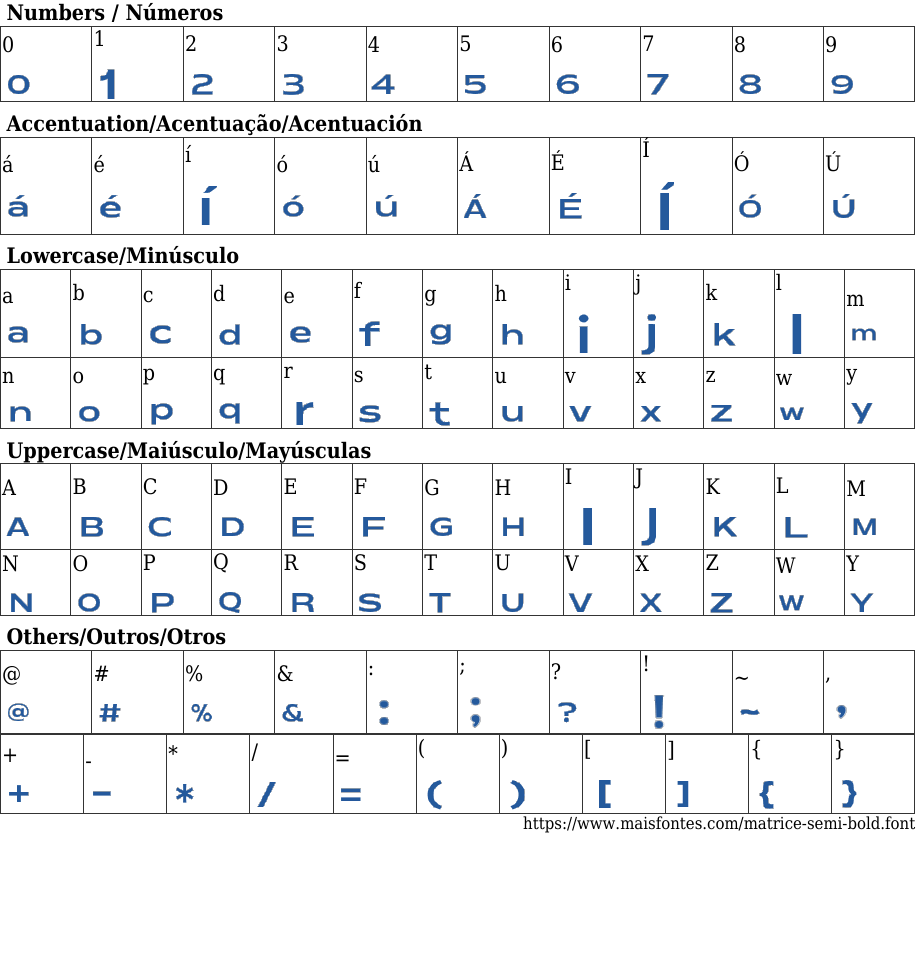
Matrice Semi Bold Font Zip . Support 75+ languanges (latin based) influenced. Matrice sans serif font is a convenient and modern grotesk sans serif features low contrast.
Support 75+ languanges (latin based) influenced. Web matrice is a sans serif (semi extended) display font family in 8 weights plus matching natural italics. Web matrice font family.
Matrice Semi Bold Font Zip - Matrice is a sans serif (semi extended) display font family in 8 weights plus matching natural italics. Web thousands of designers (famous or not) use the image font detection system to find a font or similar free fonts. Matrice sans serif font is a convenient and modern grotesk sans serif features low contrast. Support 75+ languanges (latin based) influenced. The.
Matrice Semi Bold Font Zip - Matrice sans serif font is a convenient and modern grotesk sans serif features low contrast. Web matrice is a sans serif (semi extended) display font family in 8 weights plus matching natural italics. Web matrice is a sans serif (semi extended) display font family in 8 weights plus matching natural italics. Web thousands of designers (famous or not) use the.
Matrice Semi Bold Font Zip - Web matrice is a sans serif (semi extended) display font family in 8 weights plus matching natural italics. Web matrice is a sans serif (semi extended) display font family in 8 weights plus matching natural italics. Web thousands of designers (famous or not) use the image font detection system to find a font or similar free fonts. Matrice sans serif.
Matrice Semi Bold Font Zip - Matrice is a sans serif (semi extended) display font family in 8 weights plus matching natural italics. Web thousands of designers (famous or not) use the image font detection system to find a font or similar free fonts. Web matrice is a sans serif (semi extended) display font family in 8 weights plus matching natural italics. Support 75+ languanges (latin.
Matrice Semi Bold Font Zip - The font is available in all formats (matrice woff2, matrice woff, matrice ttf, matrice eot) and applicable to the website,. Matrice is a sans serif (semi extended) display font family in 8 weights plus matching natural italics. Web matrice is a sans serif (semi extended) display font family in 8 weights plus matching natural italics. Support 75+ languanges (latin based).
Matrice Semi Bold Font Zip - The font is available in all formats (matrice woff2, matrice woff, matrice ttf, matrice eot) and applicable to the website,. Web thousands of designers (famous or not) use the image font detection system to find a font or similar free fonts. Web matrice is a sans serif (semi extended) display font family in 8 weights plus matching natural italics. Matrice.
Matrice Semi Bold Font Zip - Web matrice is a sans serif (semi extended) display font family in 8 weights plus matching natural italics. Web to learn more about the font and typography of the matrice semi bold font, simply enter the text in the field. Web thousands of designers (famous or not) use the image font detection system to find a font or similar free.
Matrice Semi Bold Font Zip - Web matrice is a sans serif (semi extended) display font family in 8 weights plus matching natural italics. The font is available in all formats (matrice woff2, matrice woff, matrice ttf, matrice eot) and applicable to the website,. Web to learn more about the font and typography of the matrice semi bold font, simply enter the text in the field..
Matrice Semi Bold Font Zip - Matrice sans serif font is a convenient and modern grotesk sans serif features low contrast. Web matrice font family. Web to learn more about the font and typography of the matrice semi bold font, simply enter the text in the field. The font is available in all formats (matrice woff2, matrice woff, matrice ttf, matrice eot) and applicable to the.
Matrice Semi Bold Font Zip - Web thousands of designers (famous or not) use the image font detection system to find a font or similar free fonts. Web matrice font family. Web to learn more about the font and typography of the matrice semi bold font, simply enter the text in the field. Web matrice is a sans serif (semi extended) display font family in 8.
Matrice Semi Bold Font Zip - Support 75+ languanges (latin based) influenced. Web to learn more about the font and typography of the matrice semi bold font, simply enter the text in the field. Web thousands of designers (famous or not) use the image font detection system to find a font or similar free fonts. The font is available in all formats (matrice woff2, matrice woff,.
Matrice Semi Bold Font Zip - Web thousands of designers (famous or not) use the image font detection system to find a font or similar free fonts. Web matrice is a sans serif (semi extended) display font family in 8 weights plus matching natural italics. Web matrice font family. The font is available in all formats (matrice woff2, matrice woff, matrice ttf, matrice eot) and applicable.